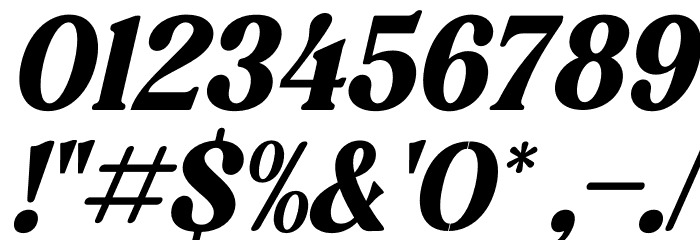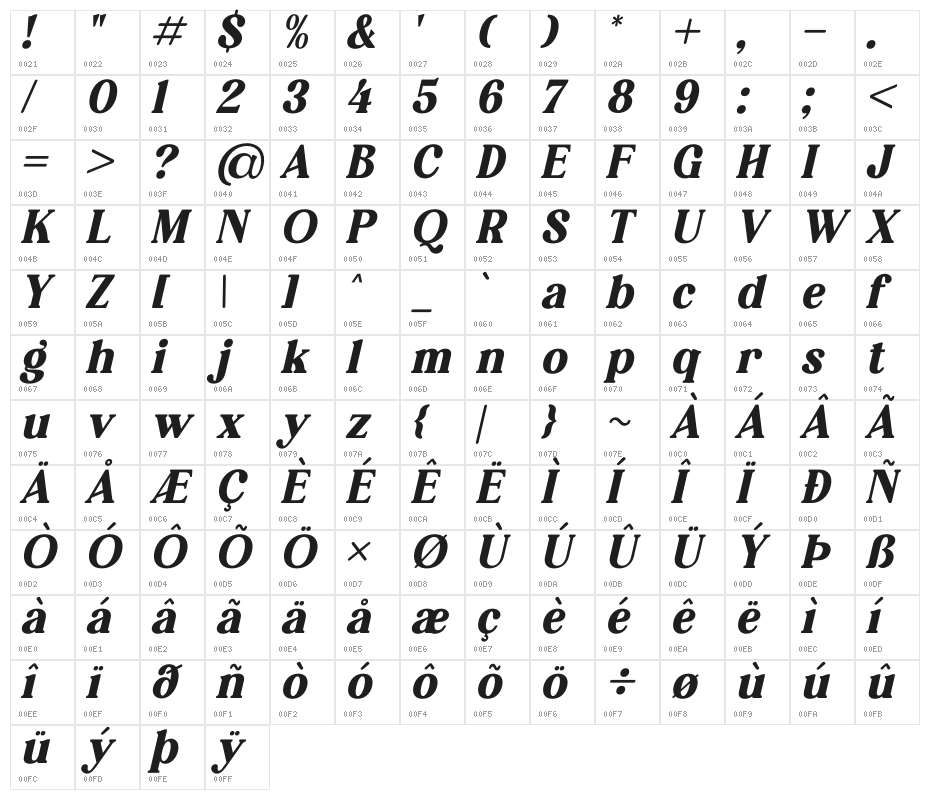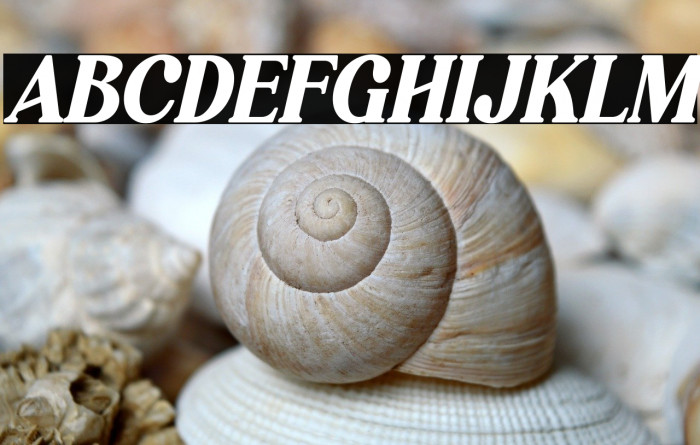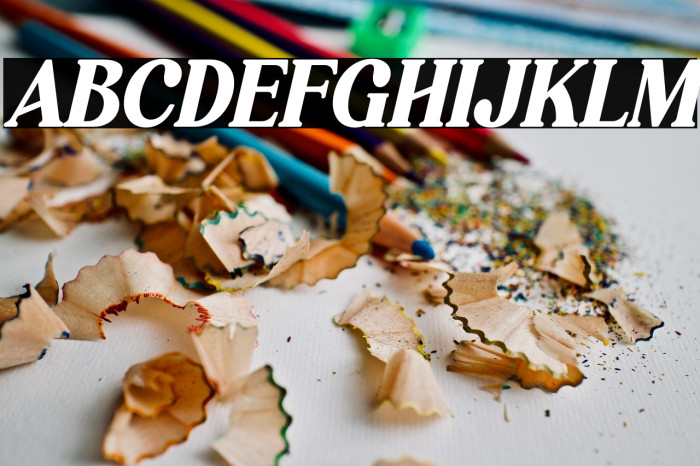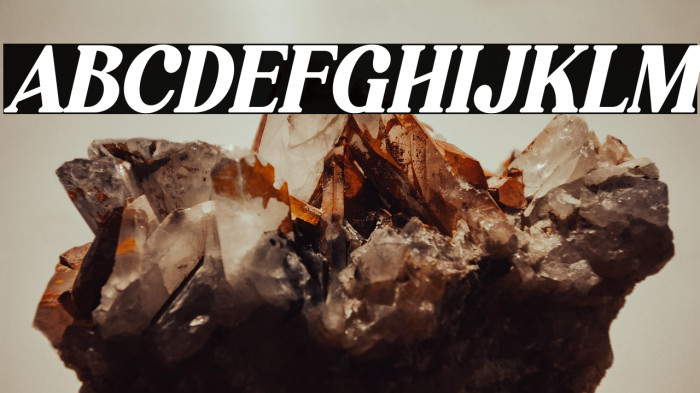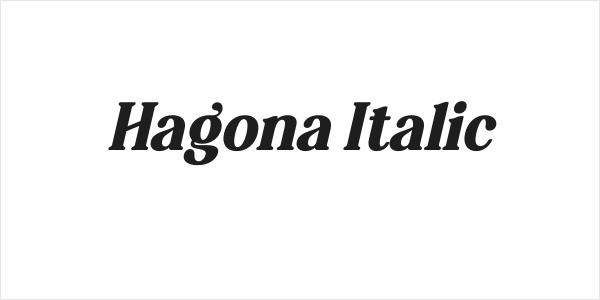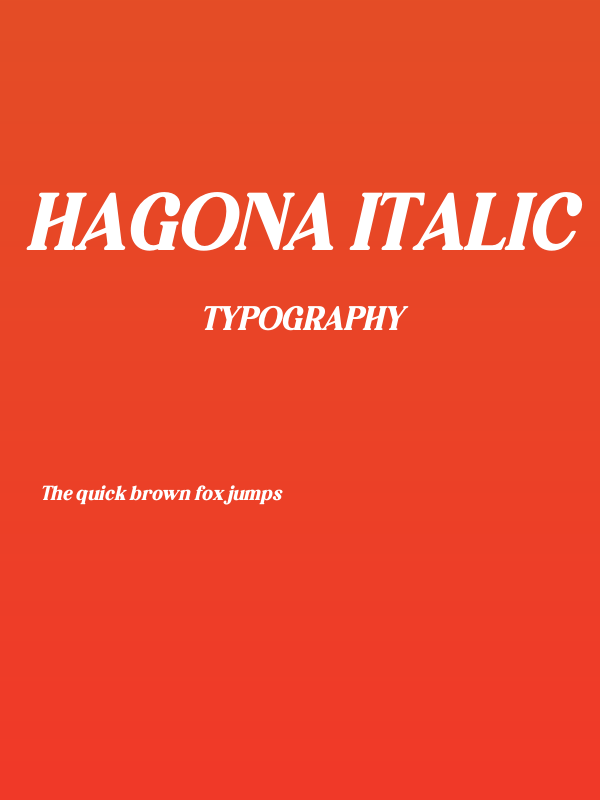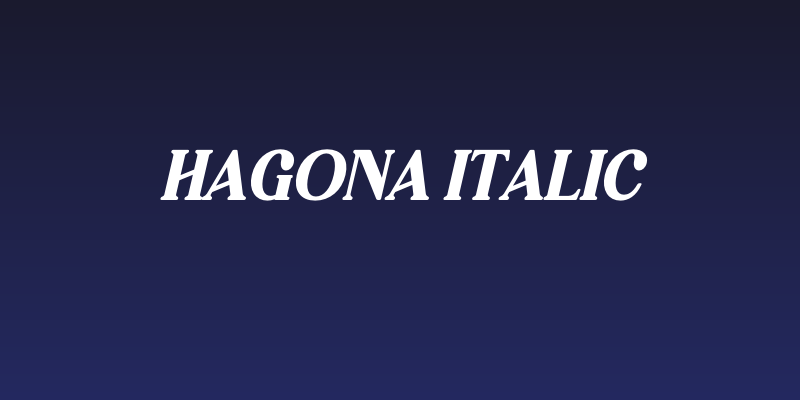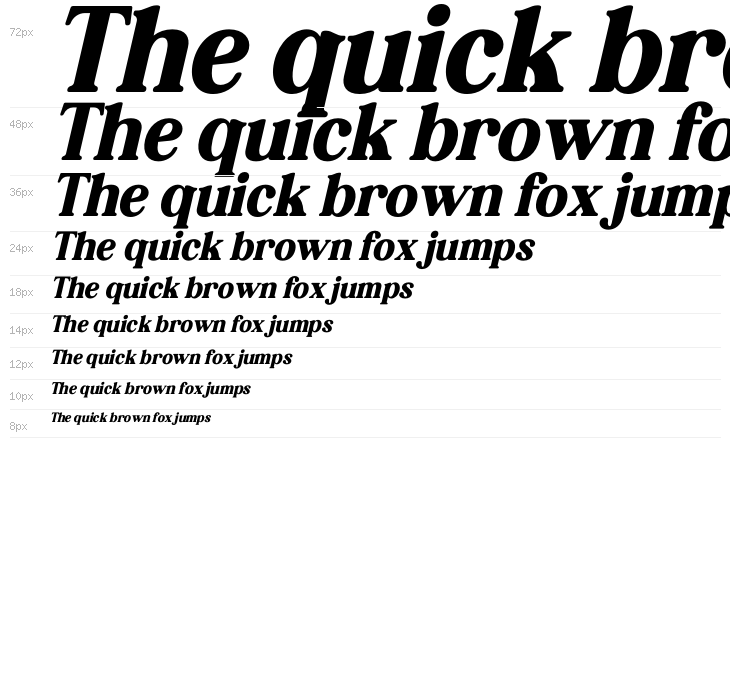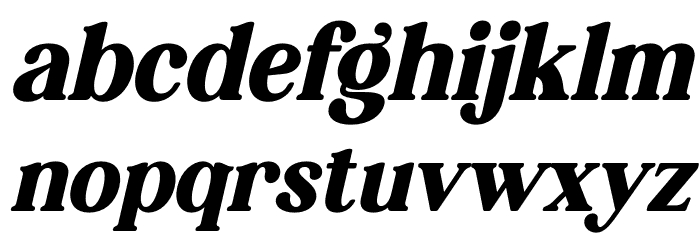
Hagona Italic Font
Hagona Italic Description
This font exudes a classic elegance with its italicized form, offering a sense of movement and sophistication. The characters are bold and well-defined, with a slight slant that adds a dynamic quality. The serifs are pronounced, giving it a traditional feel while maintaining readability. The numerals are consistent with the alphabet, ensuring a cohesive appearance across different types of content. Special characters are distinct and stylish, complementing the overall aesthetic. This font is versatile, suitable for both formal and creative projects, where a touch of class is desired.
| Use Case | Headlines, Logos, Editorial design |
| Proposed Projects | Ideal for branding, editorial design, book covers, and elegant invitations. |